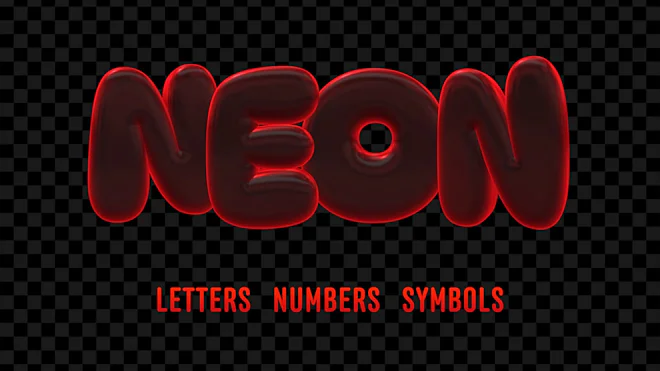
This stock motion graphics video pack includes 48 clips of Black Friday neon balloon letters, numbers, and symbols on a transparent alpha channel in a seamless loop.